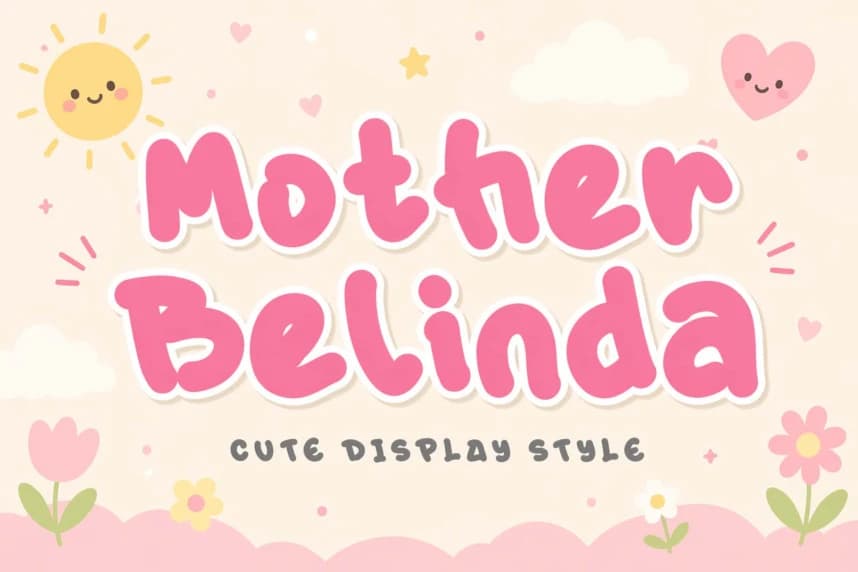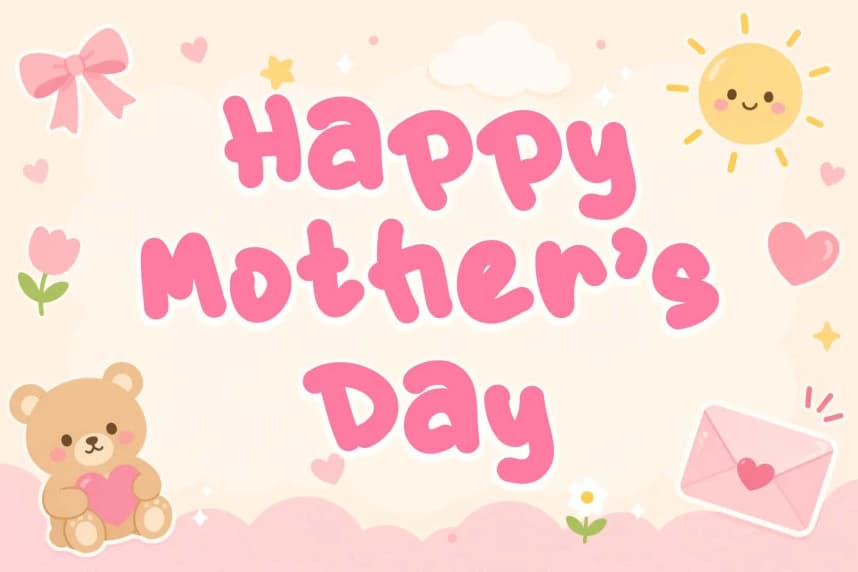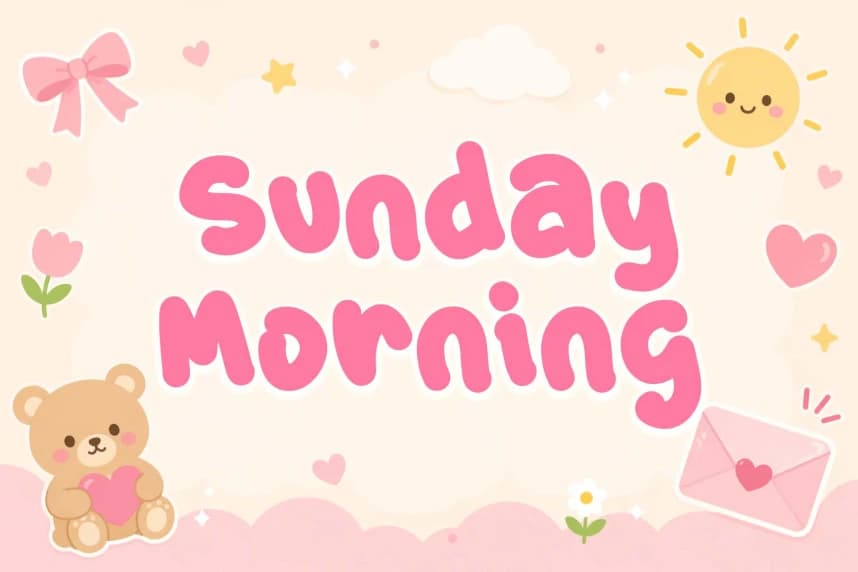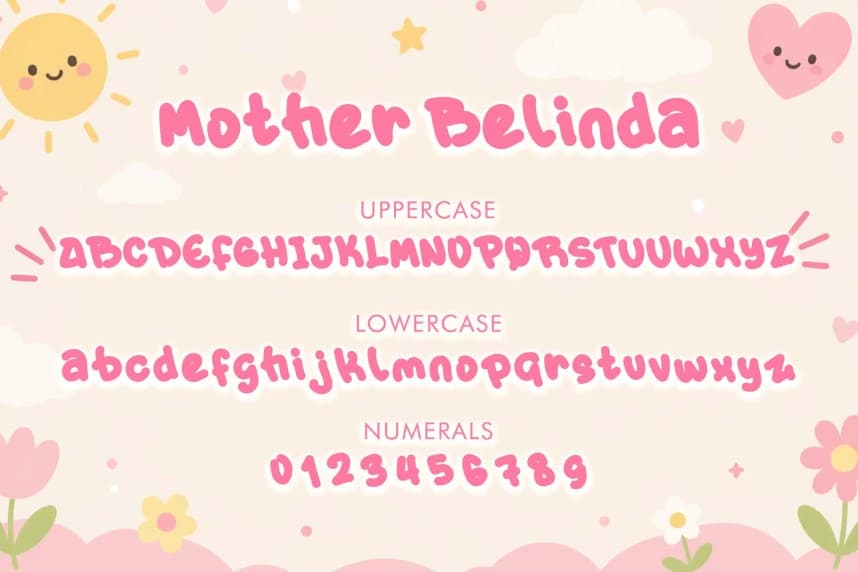
Mother Belinda Font - Embrace a world of warmth and wonder with Mother Belinda, a charming display typeface that captures a “sweet-and-sun-drenched” soul. This font features thick, ultra-rounded letterforms characterized by rhythmic, hand-drawn curves and a soft, bubbly structure that feels like a cozy embrace.